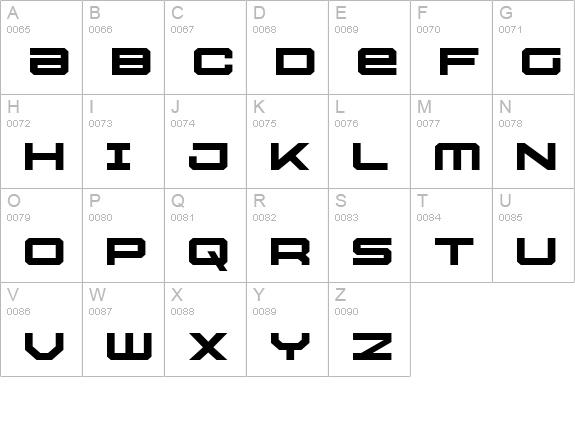
U.S.S. Dallas Expanded is a distinctive, extended-width variant in the U.S.S. typeface family \xE2\x80\x94 well suited to design and typography projects.
U.S.S. Dallas Expanded font is a bold and modern typeface that exudes strength and sophistication. With its sleek lines and extended letterforms, this font is perfect for creating impactful headlines and eye-catching designs. Whether you're working on a poster, logo, or website, U.S.S. Dallas Expanded font will make your text stand out with its commanding presence. The best part? U.S.S. Dallas Expanded font is available for free download at FontsMarket.com. So you can elevate your design projects without breaking the bank. Don't miss out on this fantastic opportunity to add a touch of elegance and style to your work with U.S.S. Dallas Expanded font. Download it today and let your creativity soar!